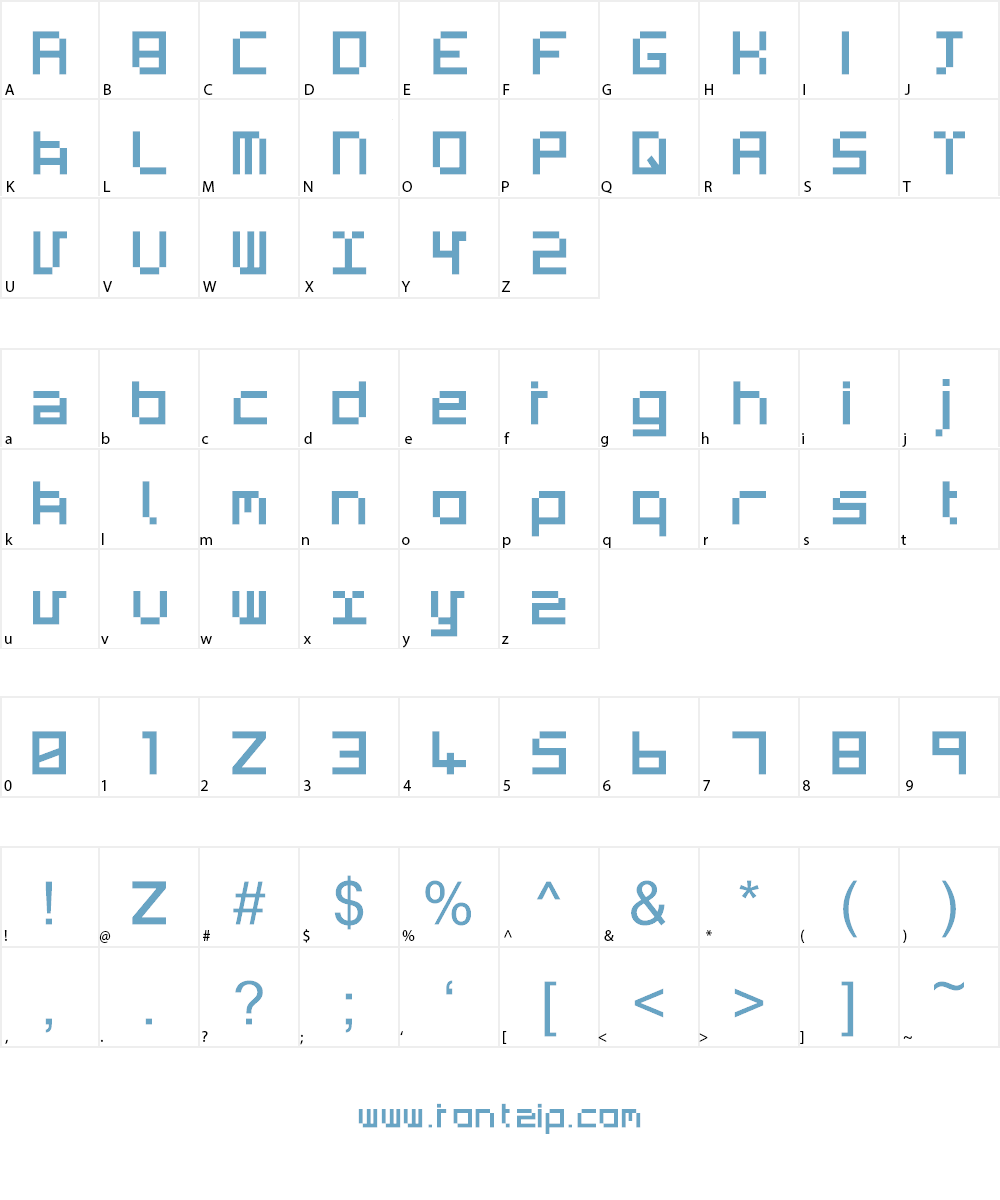
New Time Nerd Typeface is a modern yet simple typeface suitable for anyone who wants to achieve something effective and appealing. This bold yet stylish typeface is perfect for display purpose such as poster, branding and packaging as well. So, go download now and make something stunning!